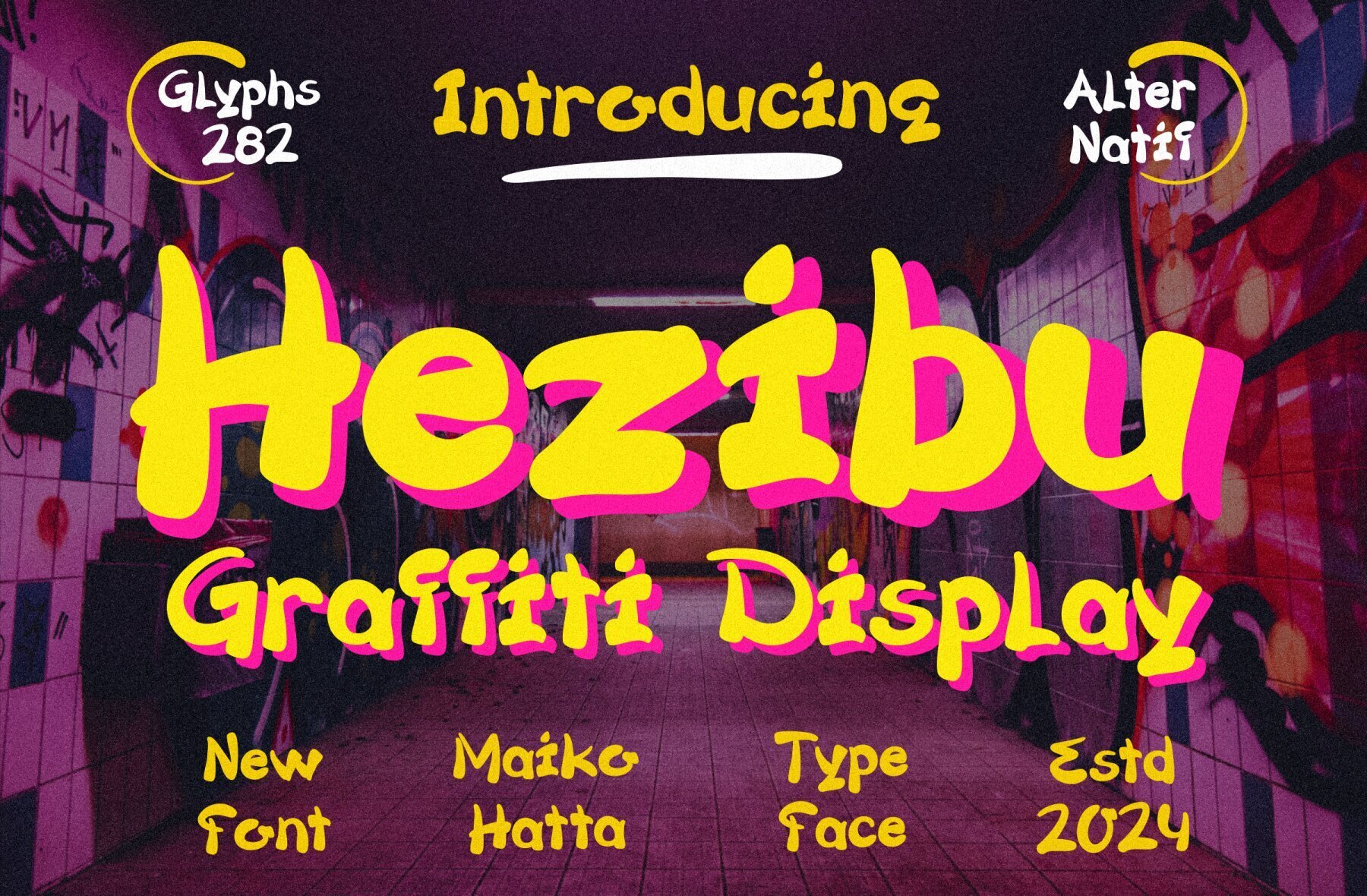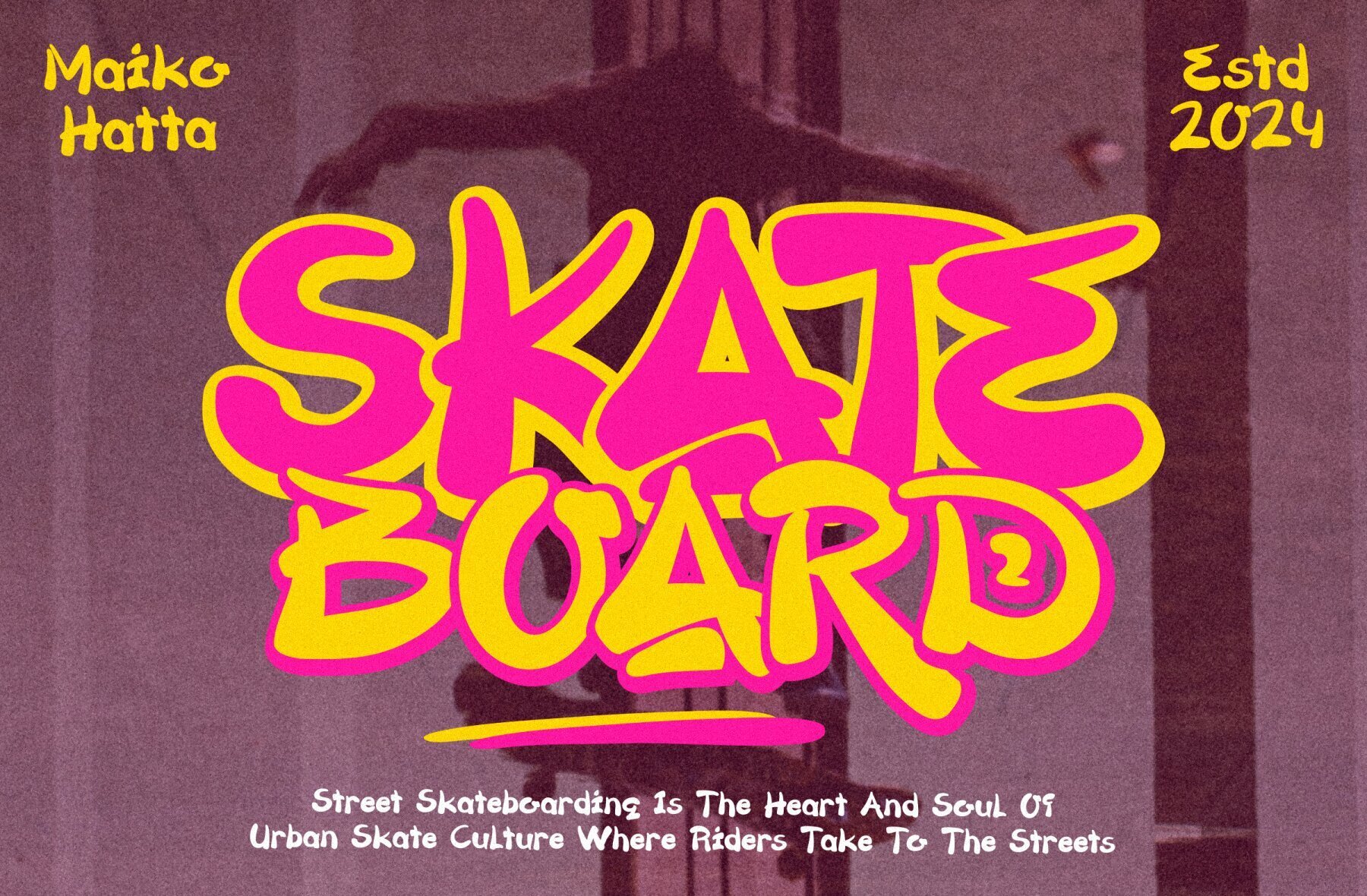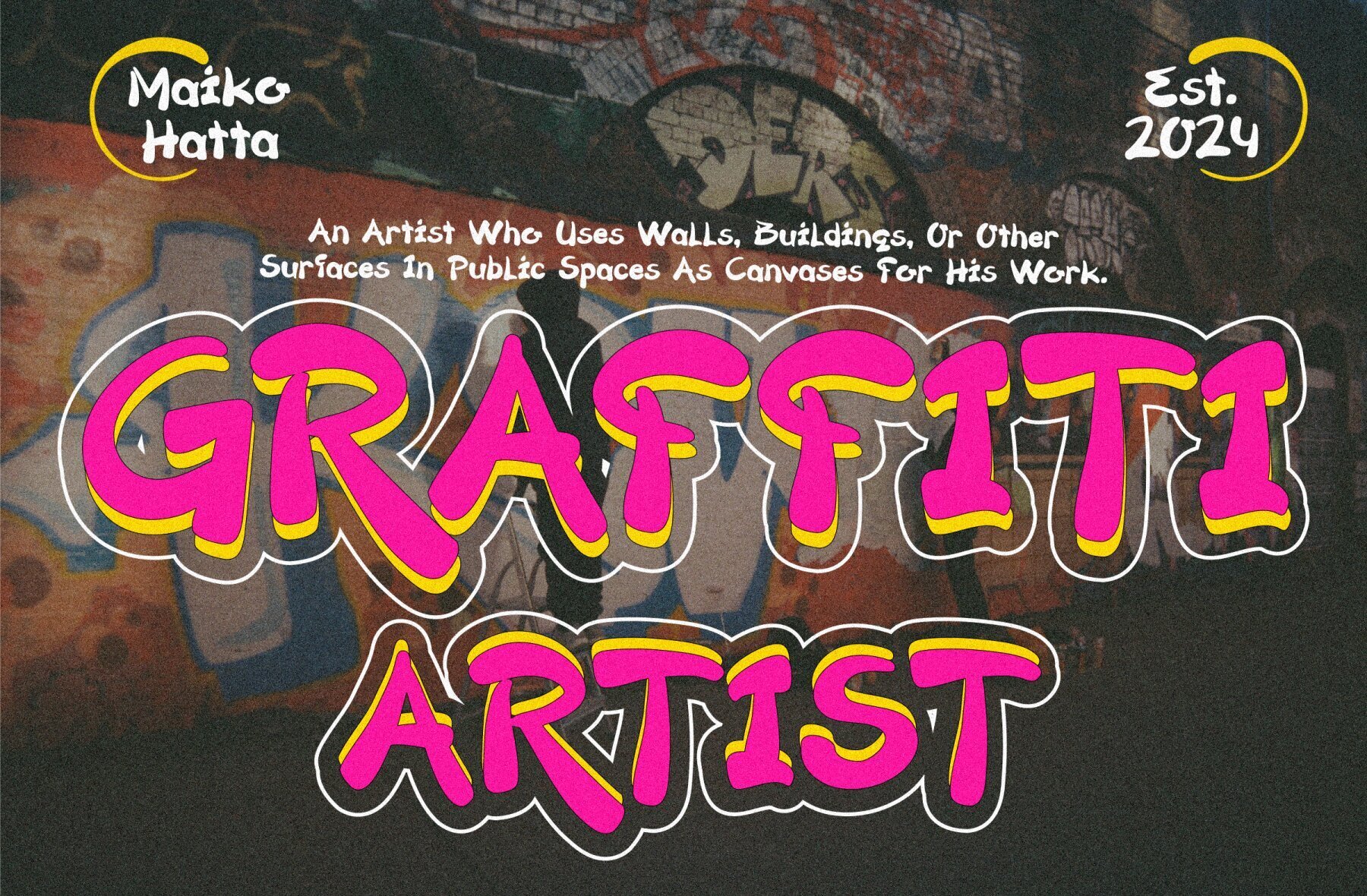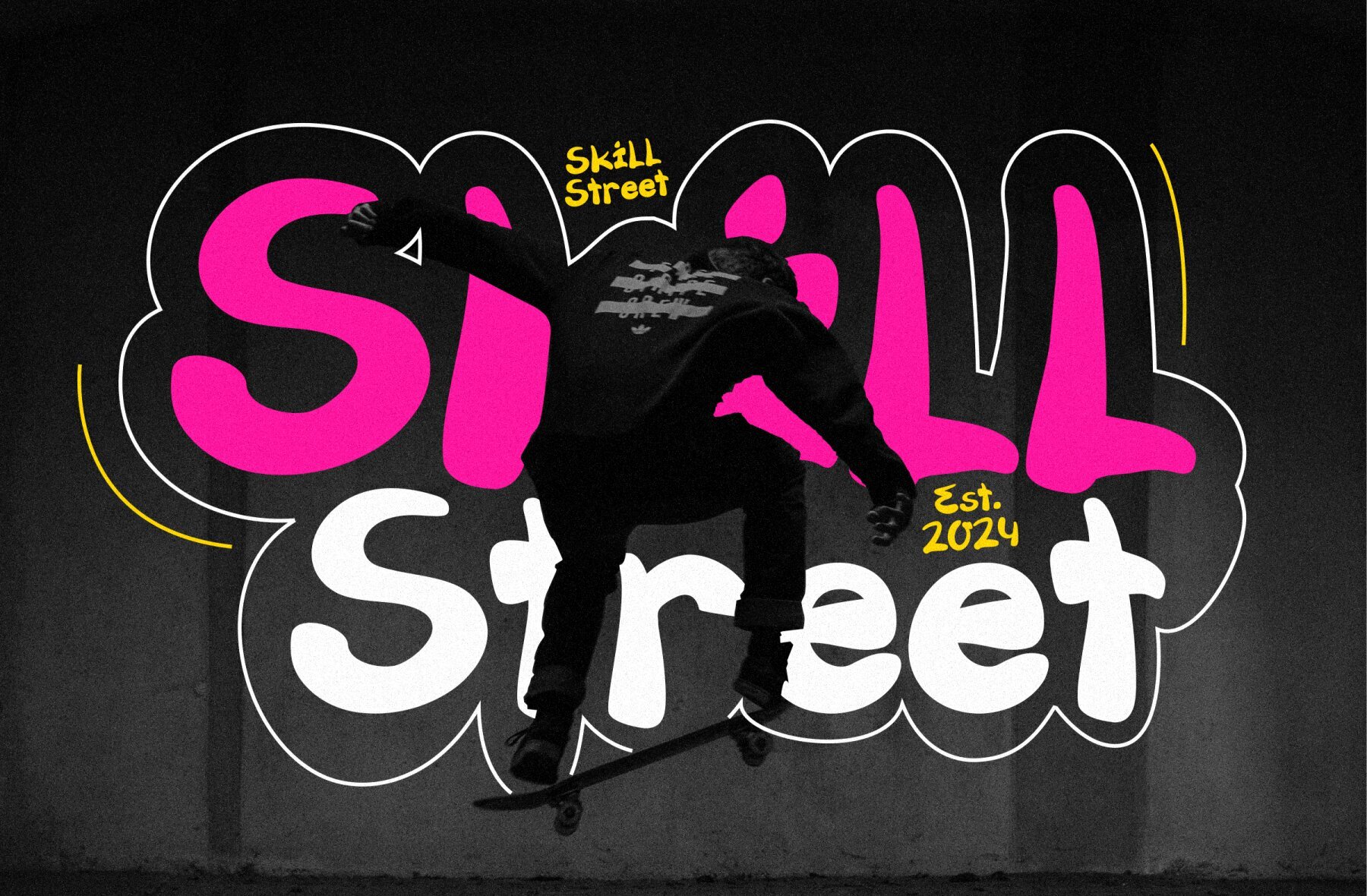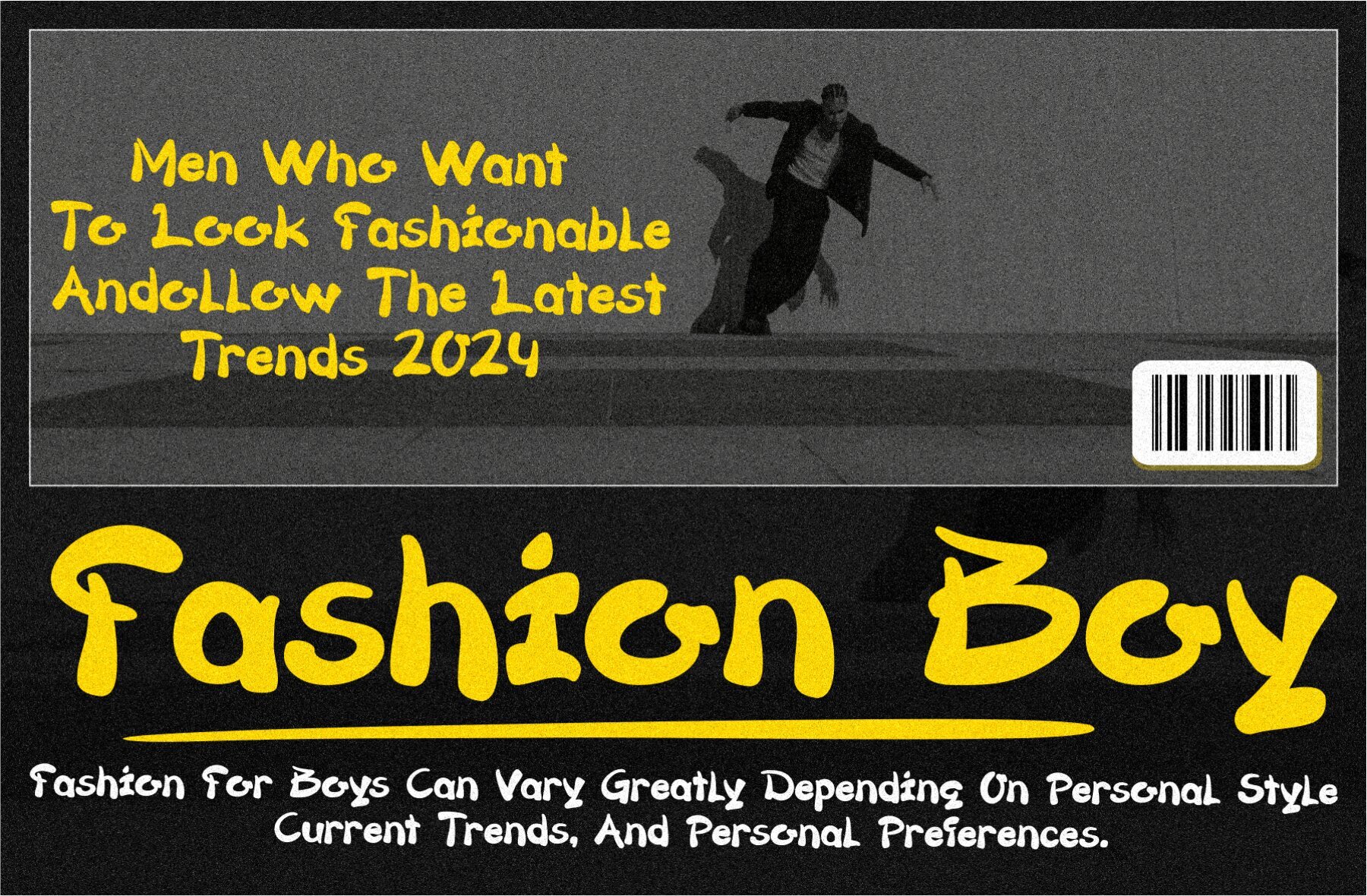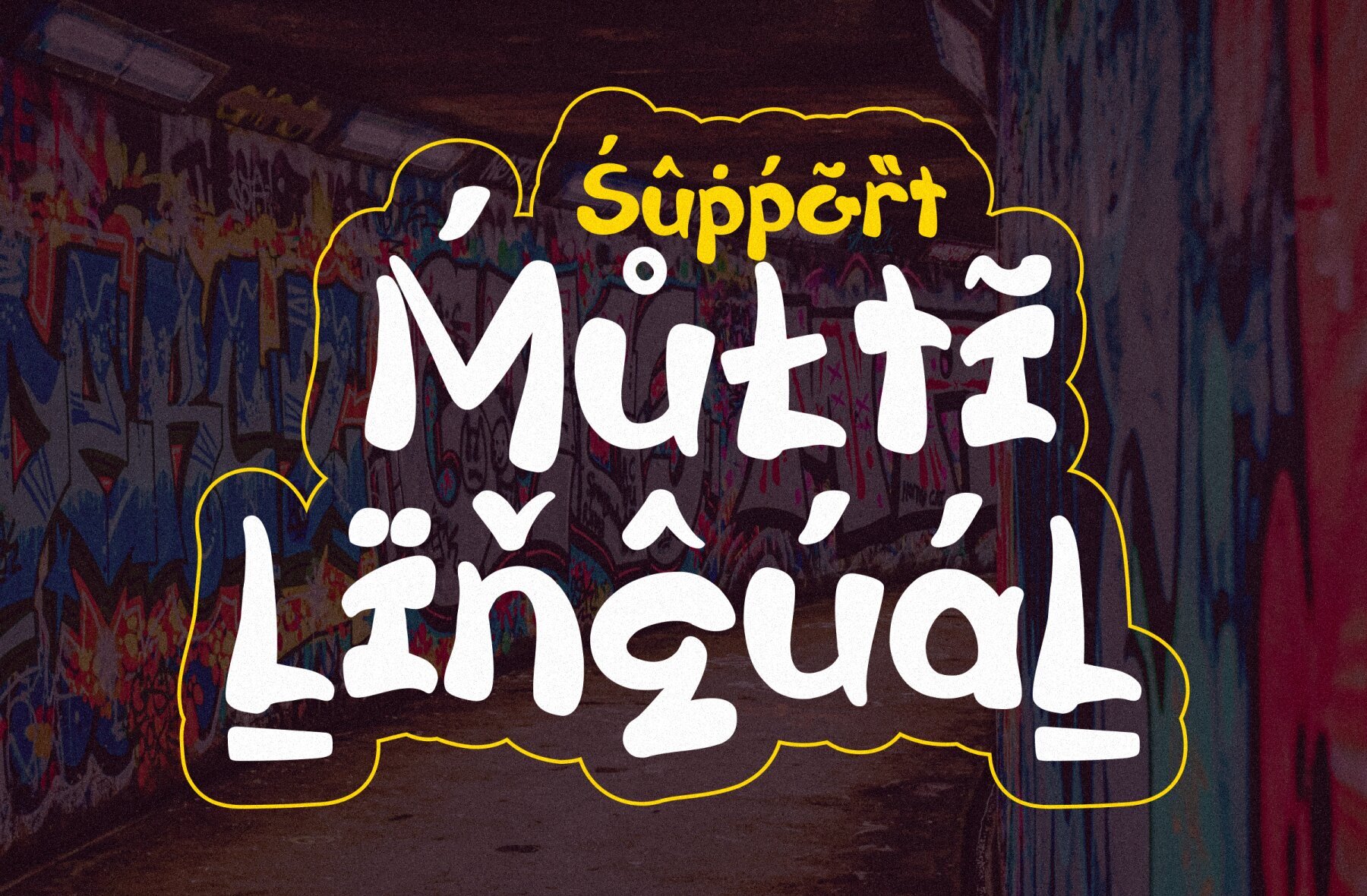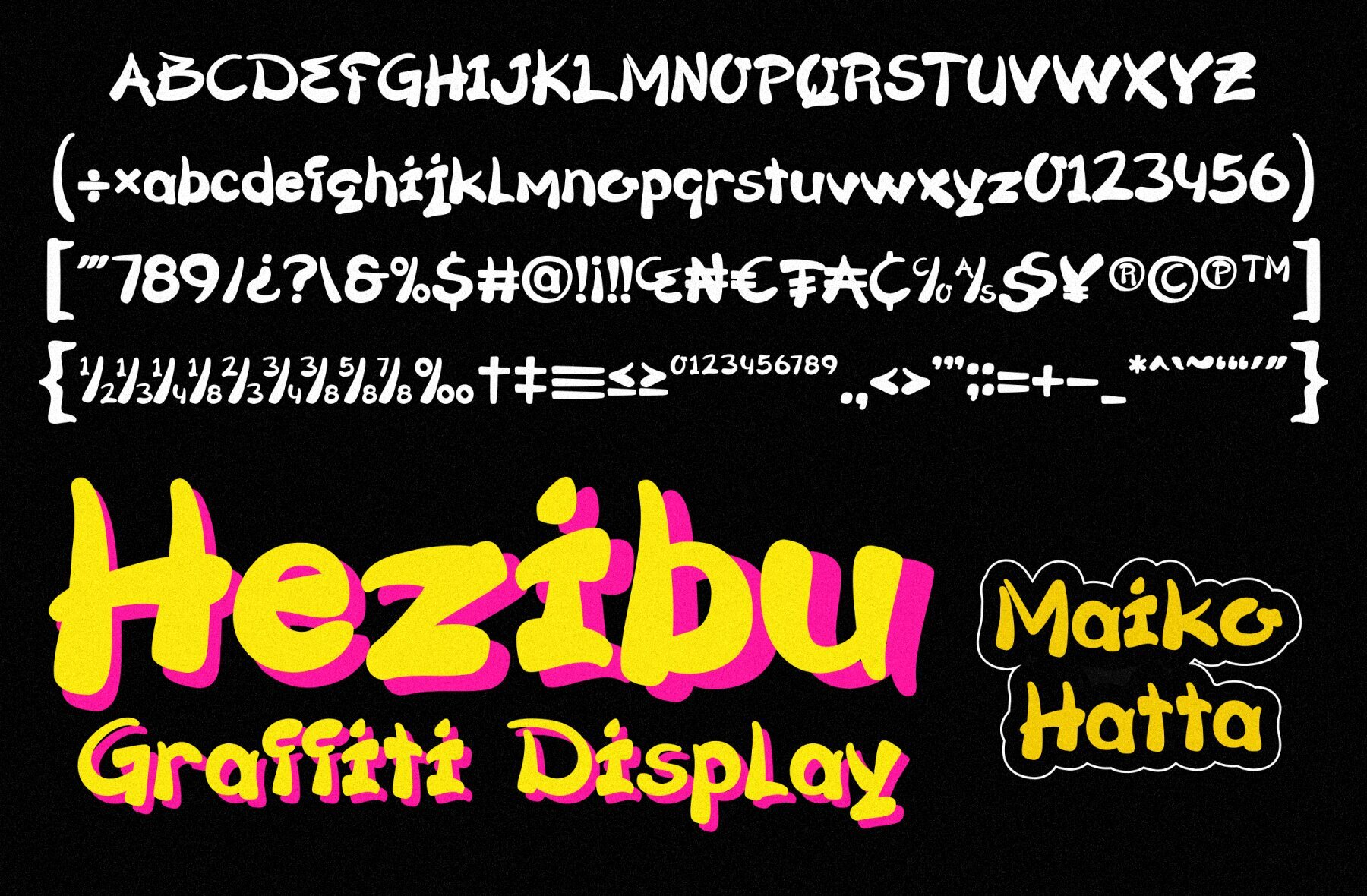
Hezibu Font
Hezibu Regular
Introducing our new product **Hezibu** - Graffiti Display This font features a combination of boldness and readability, merging the expressive brush handwriting style with contemporary design elements. It creates a fresh, dynamic look that aligns seamlessly with modern design aesthetics and is frequently employed in logo design, marketing materials, signage, and various projects requiring a contemporary and expressive touch. Its design excellence makes it a popular choice for conveying messages with a dynamic and engaging style. **available**